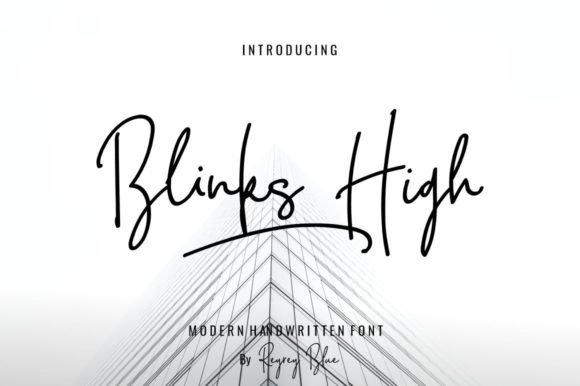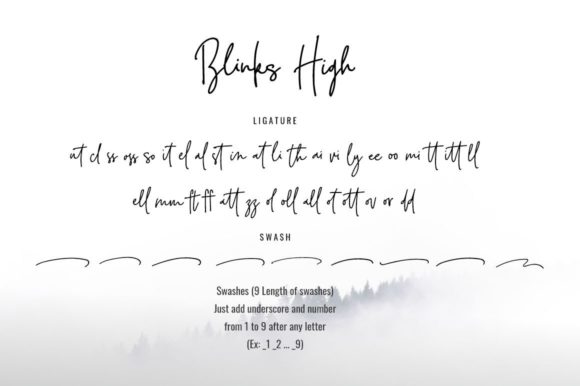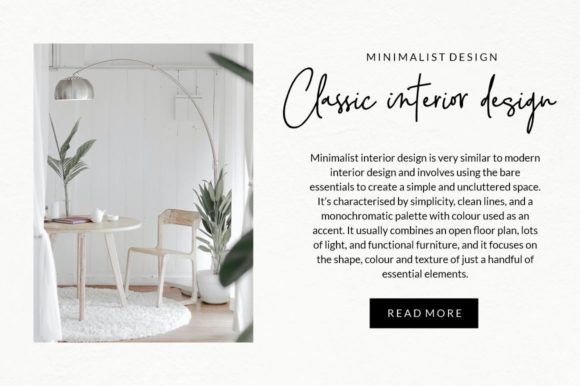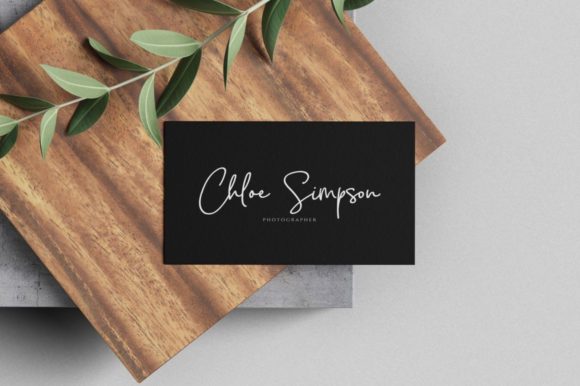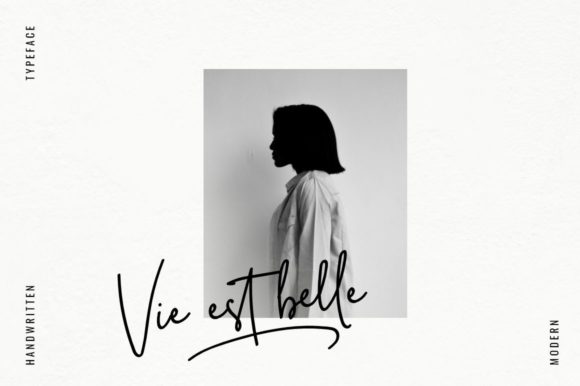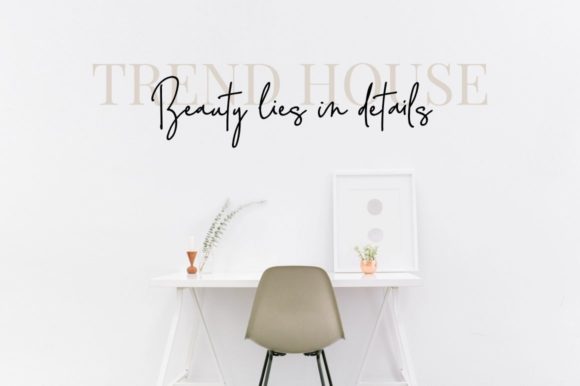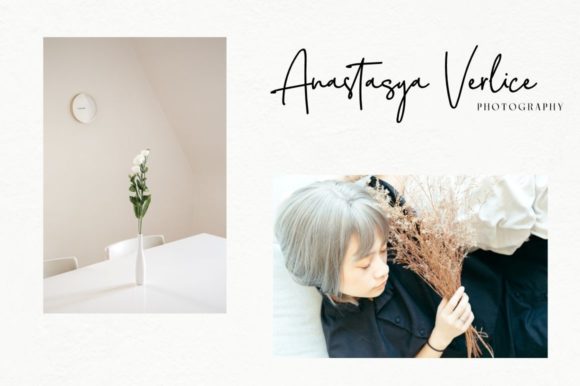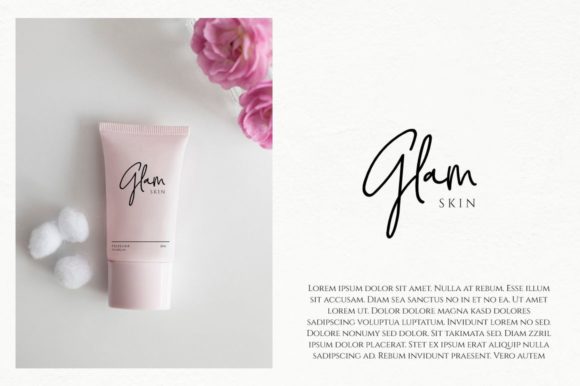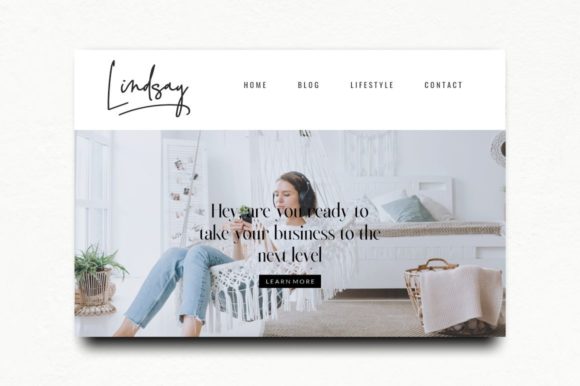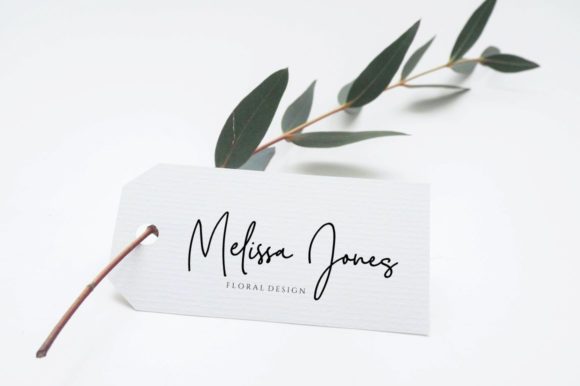
Blink High Signature Font
About Blink High Signature Font
Blink High Signature Script is a beautiful handwriting font based on an authentic and natural style.
It is perfect for branding projects, logos, wedding designs, social media posts, advertisements, product packaging, and any projects that need a customized taste. This font is PUA encoded which means you can access all of the glyphs and swashes with ease!